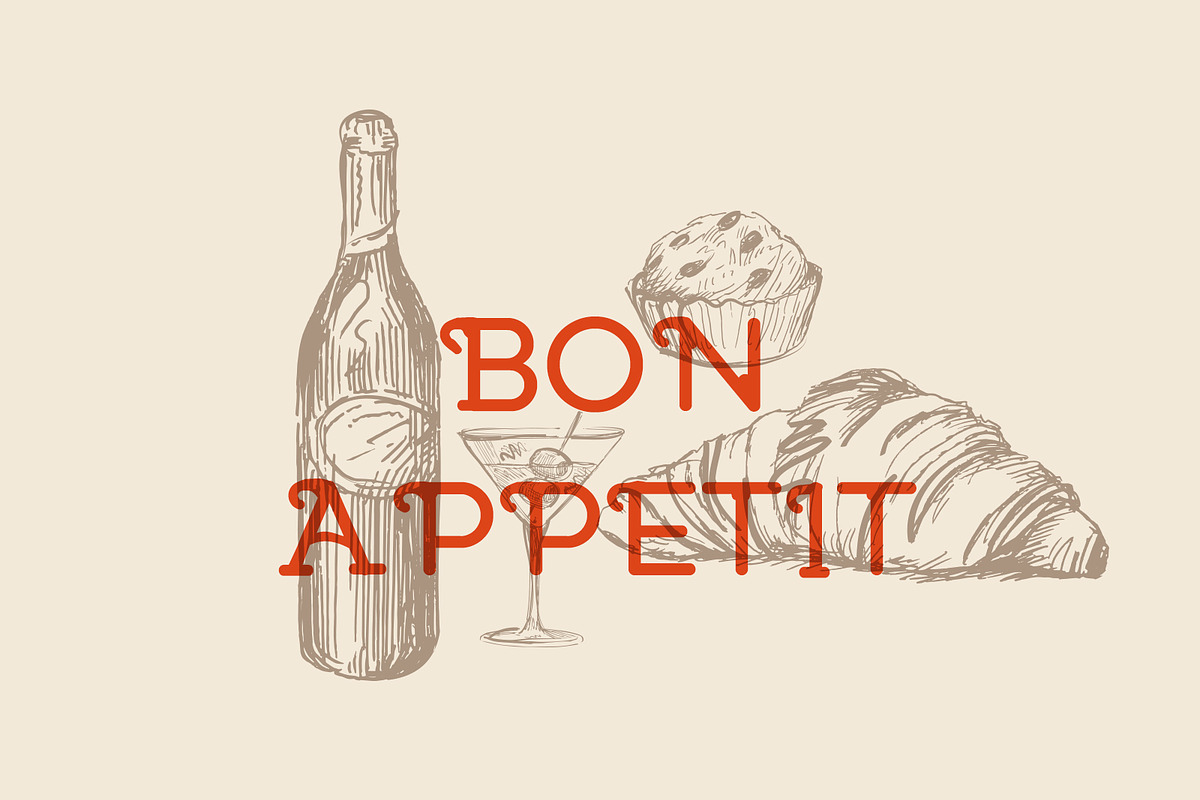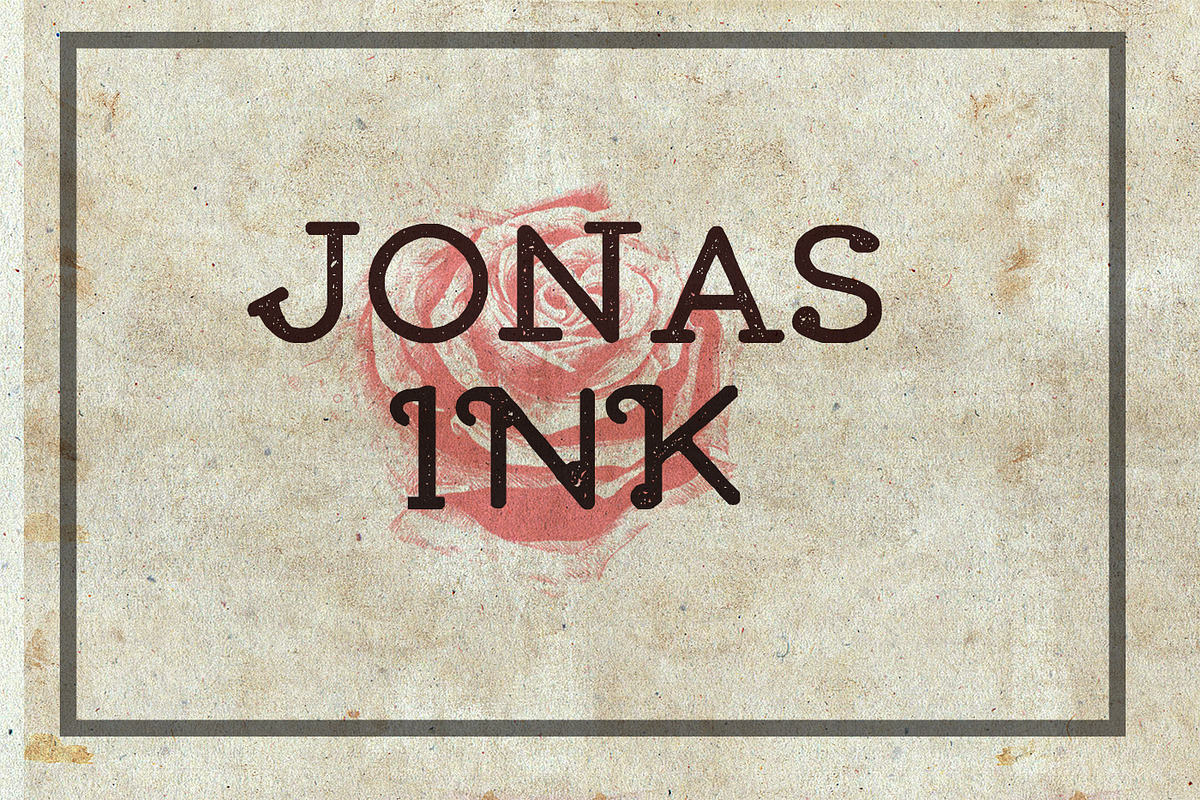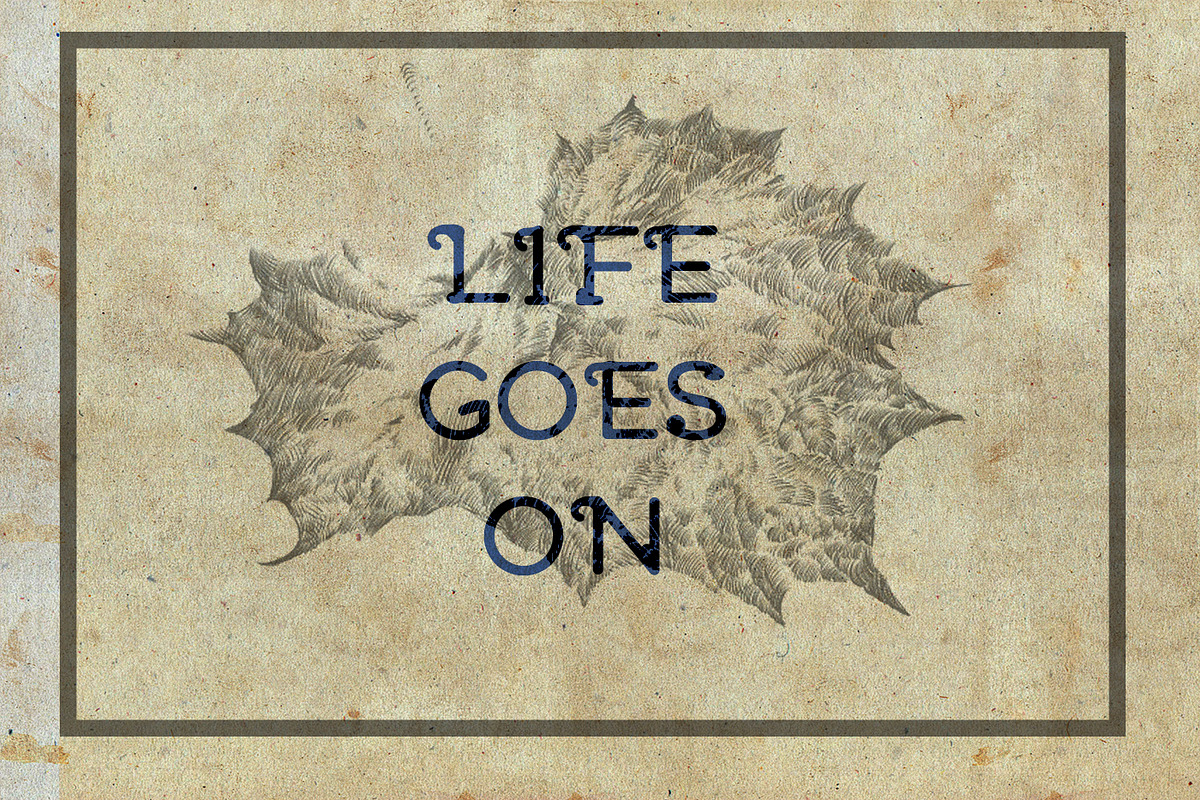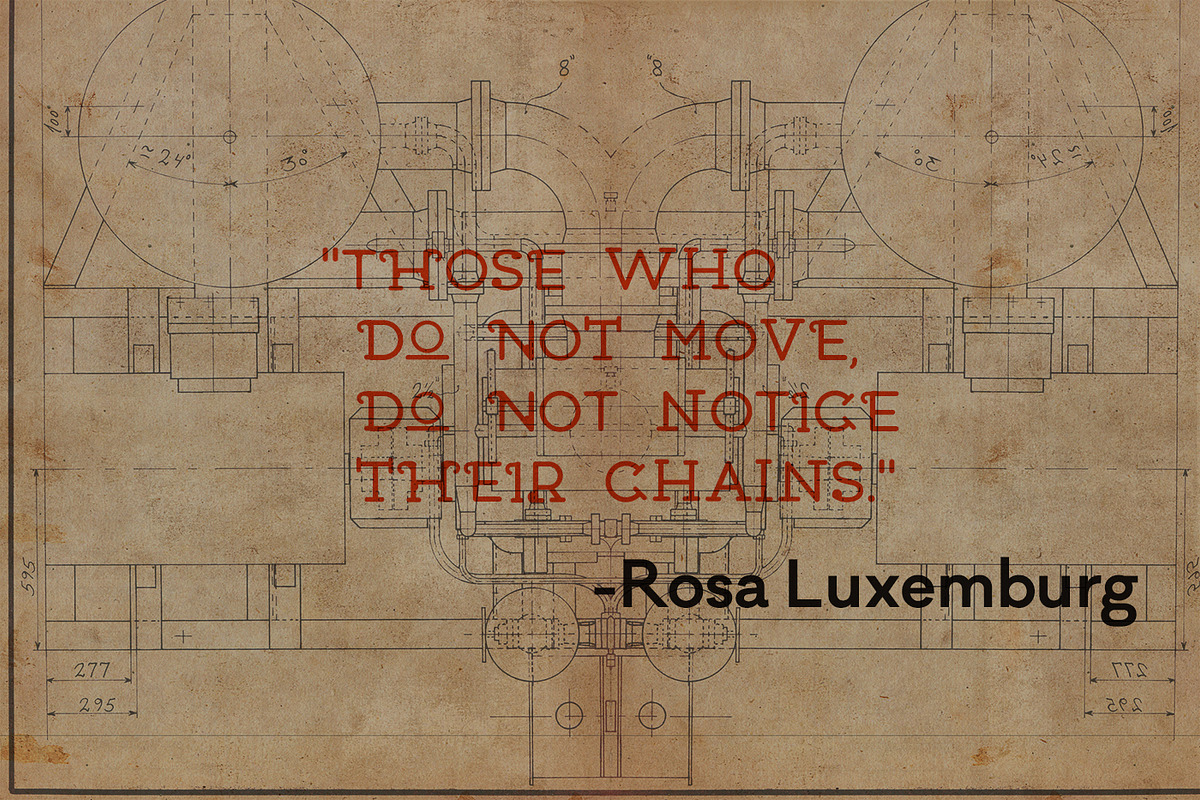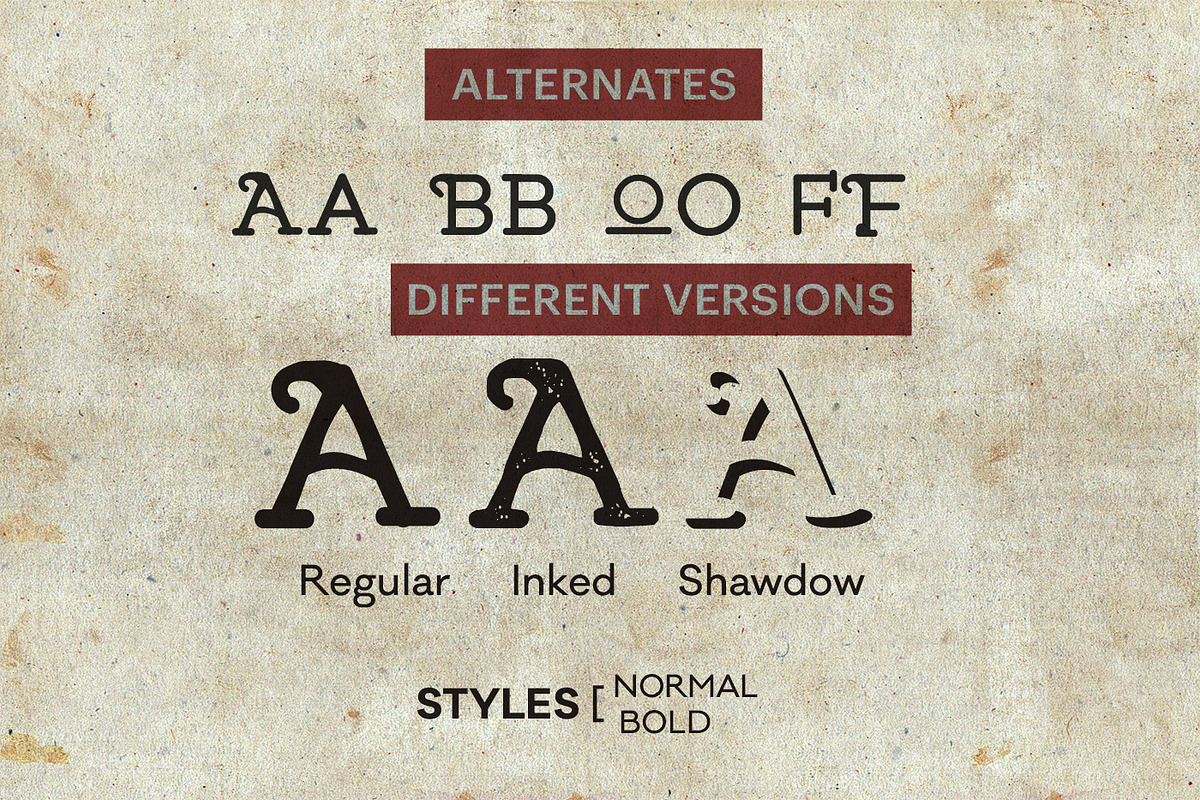
Jonas Font(40% OFF) by Nautica Studios is a font selected for branding, posters, packaging, typography.
- Jonas Regular
- JonasShadow Regular
- Jonas Bold
- Jonas Ink
Jonas Font(40% OFF) by Nautica Studios fits naturally into Branding, posters, packaging, typography.